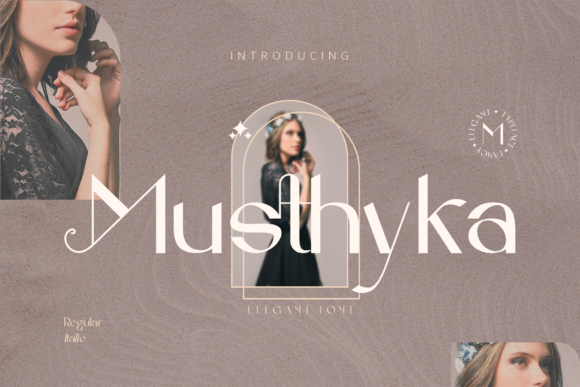
Behold Musthyka, a font of exquisite elegance born from the creative forge of RT Studio. This sans serif masterpiece captivates with its intricate details, leaving an enduring impression wherever it's employed.
Musthyka is the epitome of grace and sophistication, meticulously crafted to elevate your designs to new heights. Its sweeping curves and delicate serifs dance in harmony, creating a visual feast that draws the eye and captivates the senses. Each letterform is a work of art, showcasing the utmost attention to detail and precision.
Unleash your creativity with Musthyka and let your designs flourish. Its versatility knows no bounds, effortlessly complementing everything from wedding invitations and thank you cards to quotes, greeting cards, logos, and business cards. It possesses the unique ability to transform the ordinary into the extraordinary, imbuing even the simplest of designs with a touch of timeless elegance.
Journey beyond the conventional with Musthyka, and embark on a typographic adventure that will ignite your imagination and set your designs apart. Its inherent charm will captivate your audience, leaving them spellbound by the beauty and sophistication of your creations.